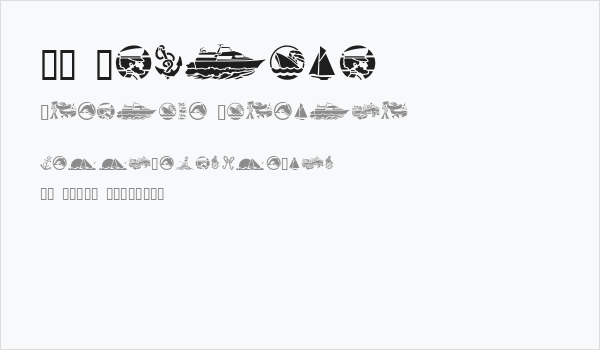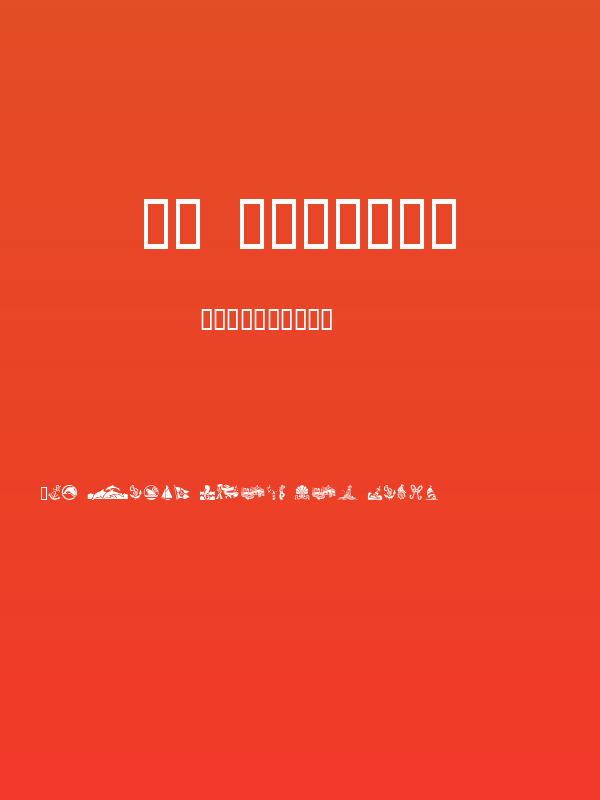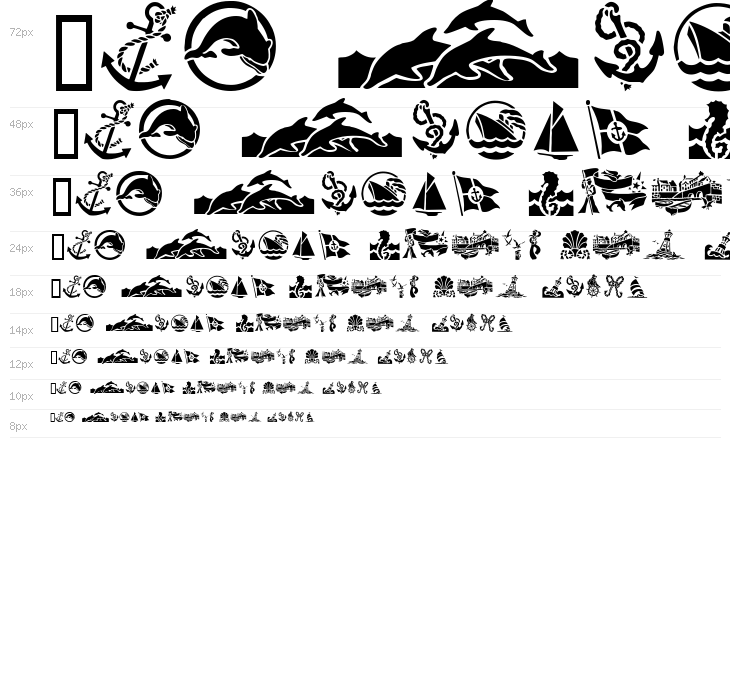
GE Nautica Font
GE Nautica Description
A decorative dingbat font featuring a variety of nautical-themed icons such as sailboats, dolphins, anchors, lighthouses, seashells, and marine life, rendered in bold black silhouettes with clear, recognizable shapes.
| Overall Style | Decorative, Thematic |
| Use Case | Logos, Decorative elements, Themed graphics |
| Proposed Projects | Perfect for summer event flyers, beach party invitations, maritime branding, scrapbooking, and themed decor. |